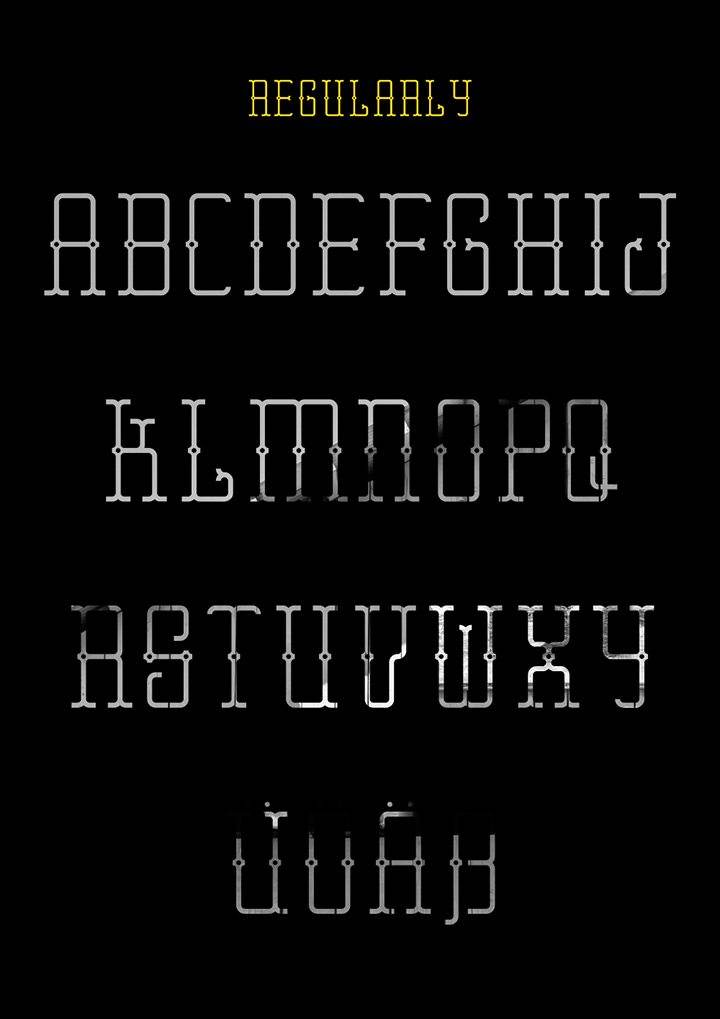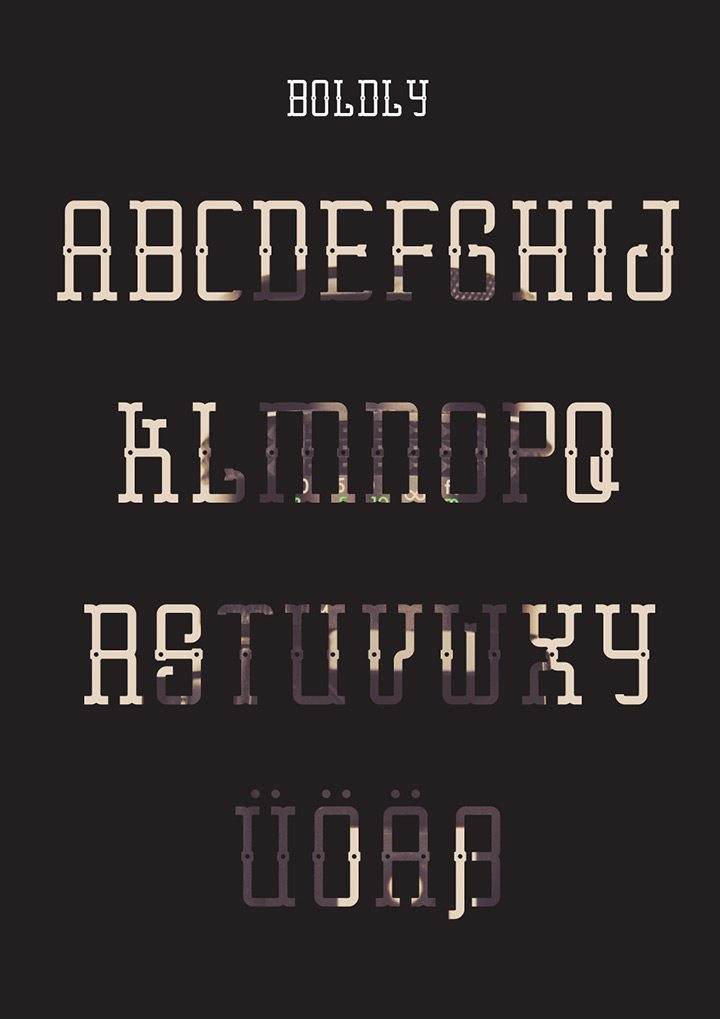
Fonts Free Font Of The Day #128 – Erster Caps Font by Yayang Apryana March 4, 2015 Erster Caps Font The Font is a free uppercase font inspired to industrial world. It has been designed and exclusively released for Freebiesbug by Brian Jangima. It comes with two weights, regular and bold. Download